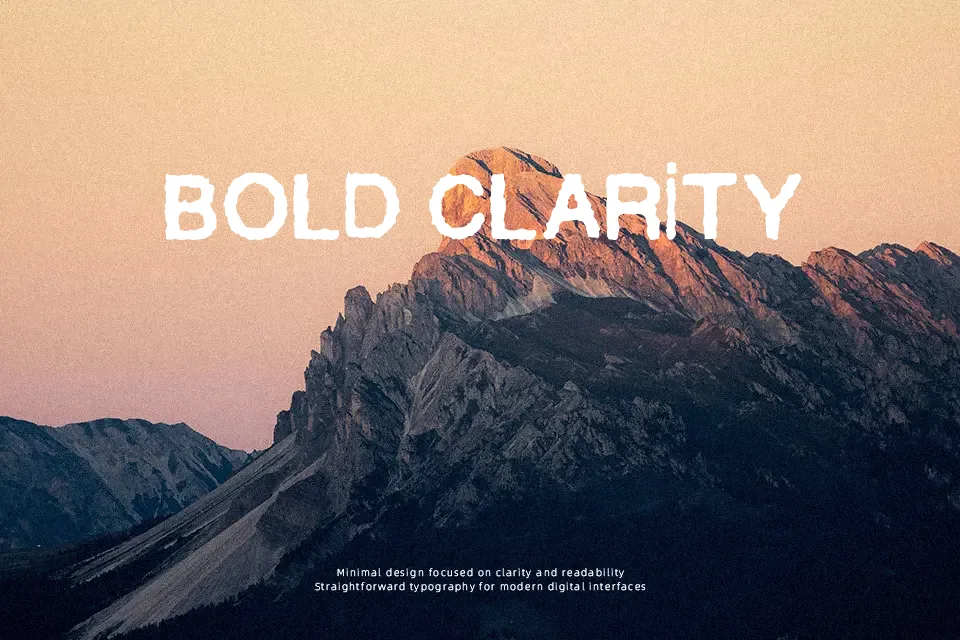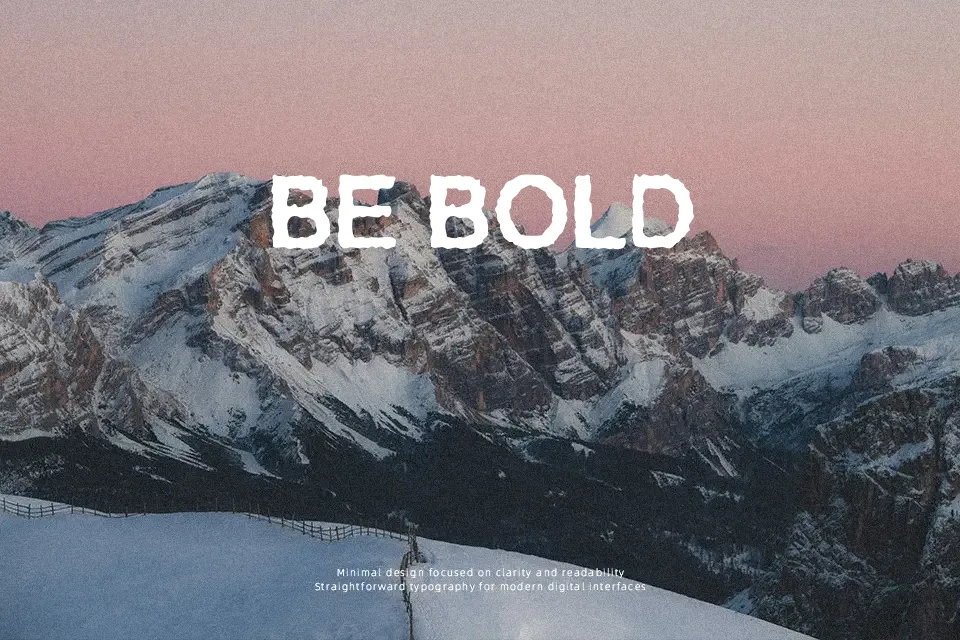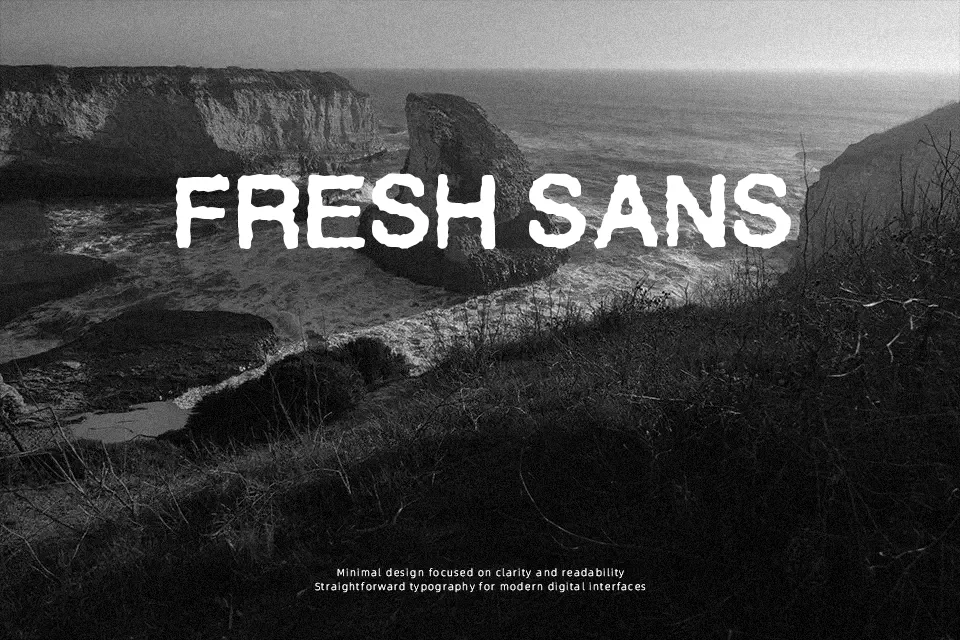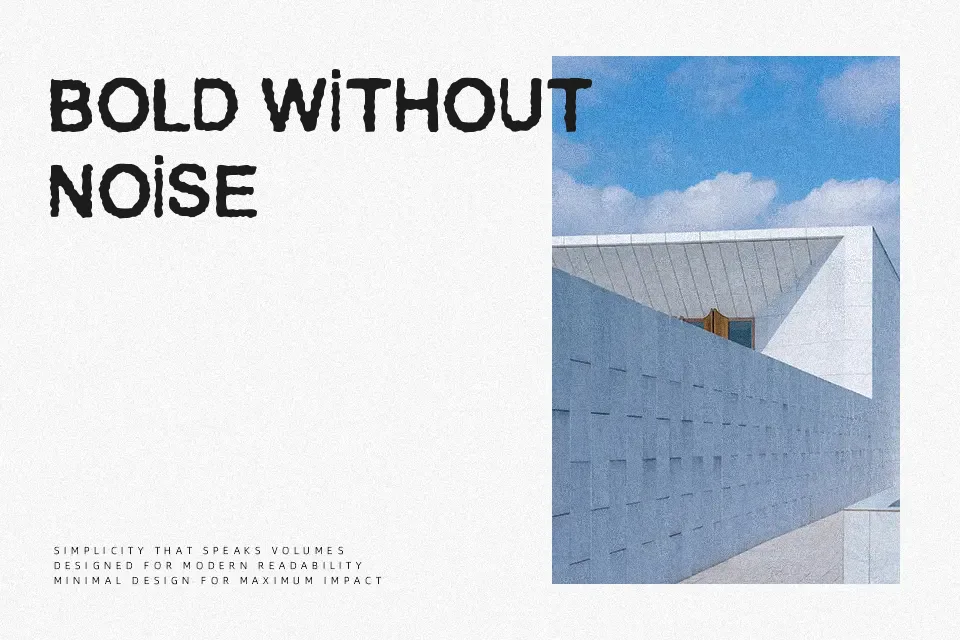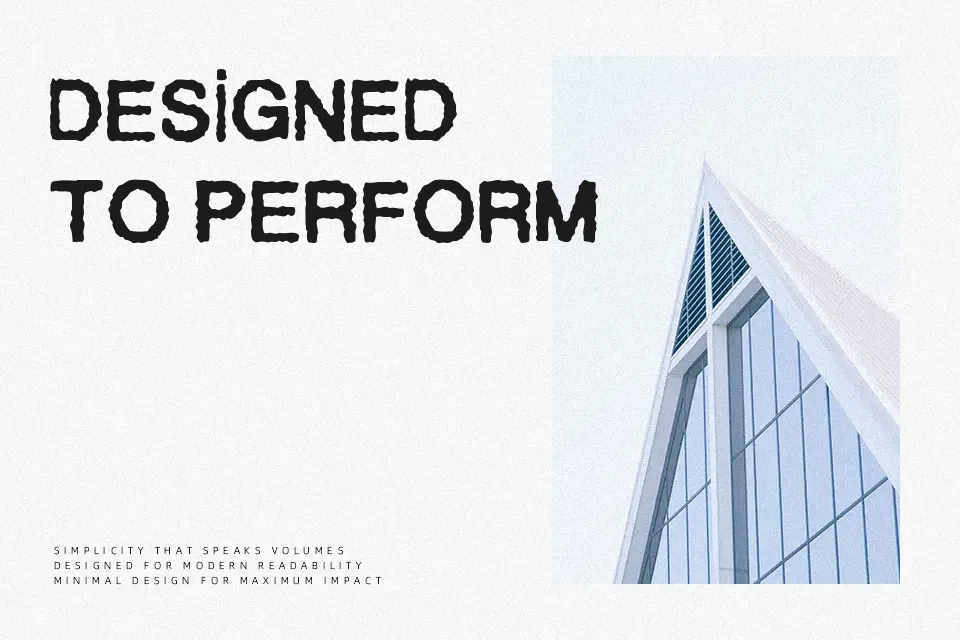
Sentencia Font
Sentencia Font introduces an industrial eroded structure characterized by irregular edge degradation, dense letterforms, and tight character spacing. Solid vertical strokes maintain visual weight across uppercase titles, while horizontal cuts create an authentic weathered texture throughout the alphabet. The design provides strong graphic distinction for event posters, merchandise prints, beverage packaging, and cinematic title sequences. However, the heavy fragmentation and compact internal apertures significantly hinder clarity in continuous reading, dense editorial layouts, and small interface labels. The typeface performs best when displayed at larger sizes where the intricate distressing remains recognizable without compromising overall character recognition.
Best For: music festival posters, streetwear apparel graphics, grunge packaging labels, cinematic title cards
Not Ideal For: long body text, mobile interface captions, financial spreadsheets, dense editorial columns
Perfect for branding, headline, and music, with a bold and decorative style.